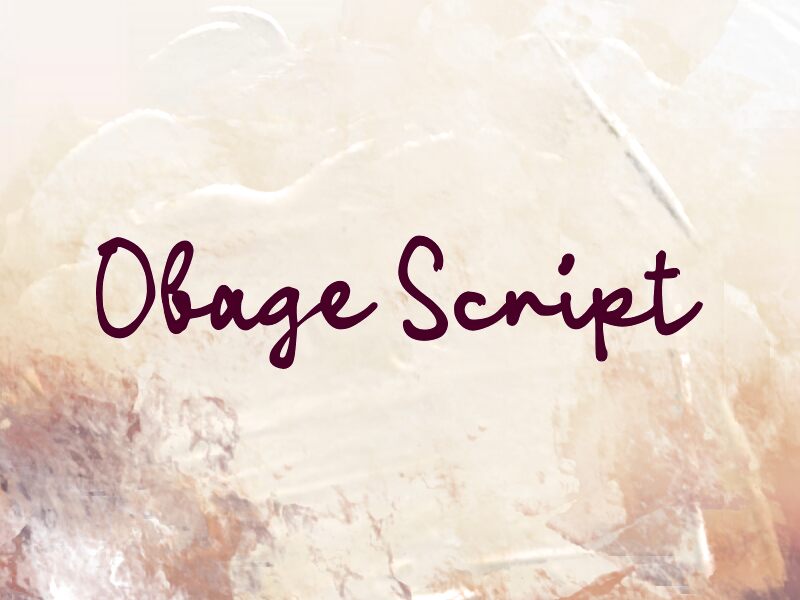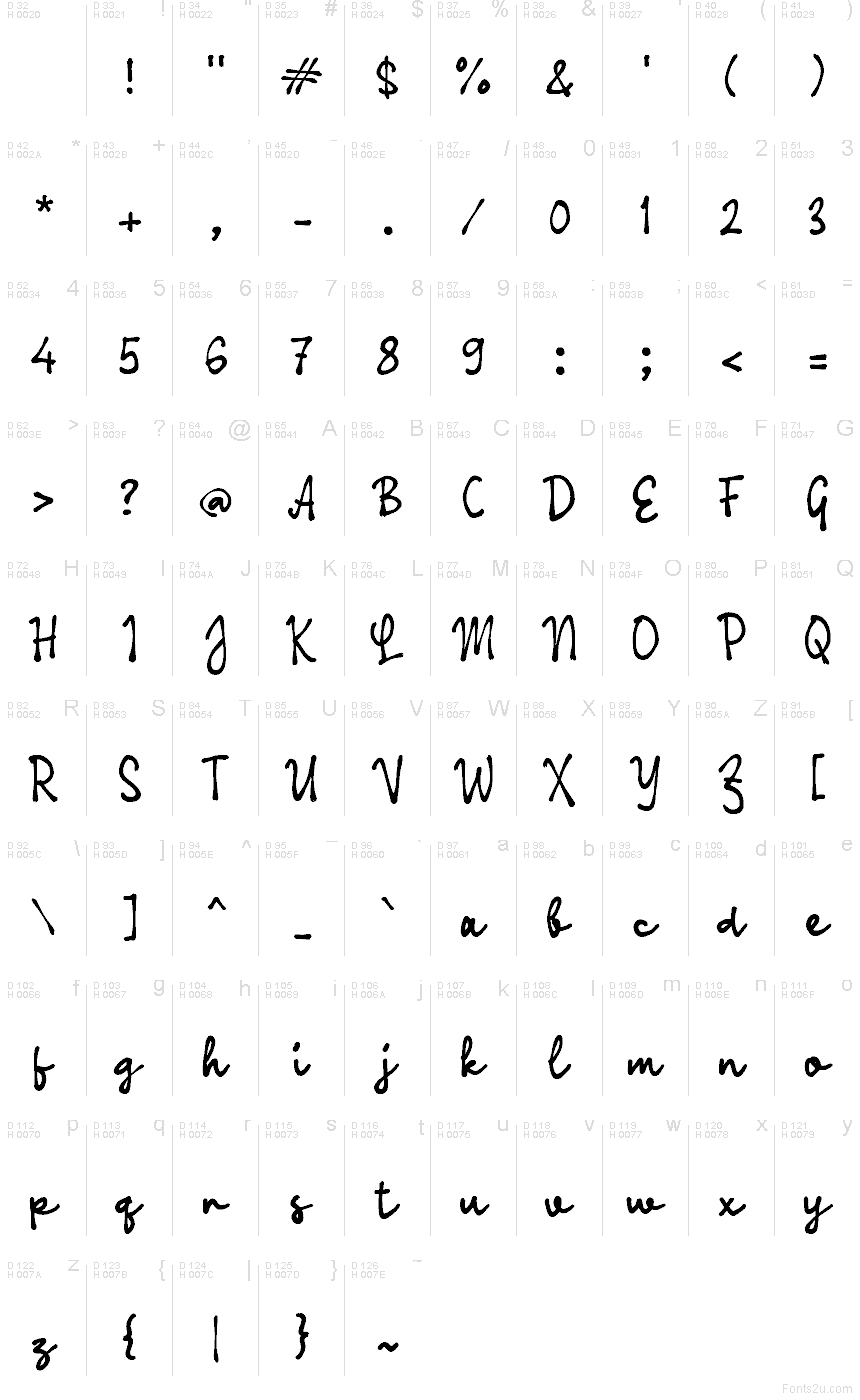
Obage Script
Obage Script font by wep is a free handwritten font that looks like it was dashed off with a slightly inky marker—loose, friendly, and effortlessly legible. Its strokes are a touch irregular without turning messy, giving you that real-handwriting feel while still holding together in longer lines of text. The letters sit close and connected, creating a warm, conversational rhythm that feels more like a note from a friend than a formal script.
Using Obage Script, you can bring that relaxed, personal touch to social media graphics, quote posts, packaging, journaling titles, invitations, and blog graphics. This free font shines on anything that needs personality without becoming cute or fussy. Try pairing Obage Script with a clean, simple sans serif for body text and let Obage Script handle headlines or short phrases at larger sizes so its easygoing character really shows.